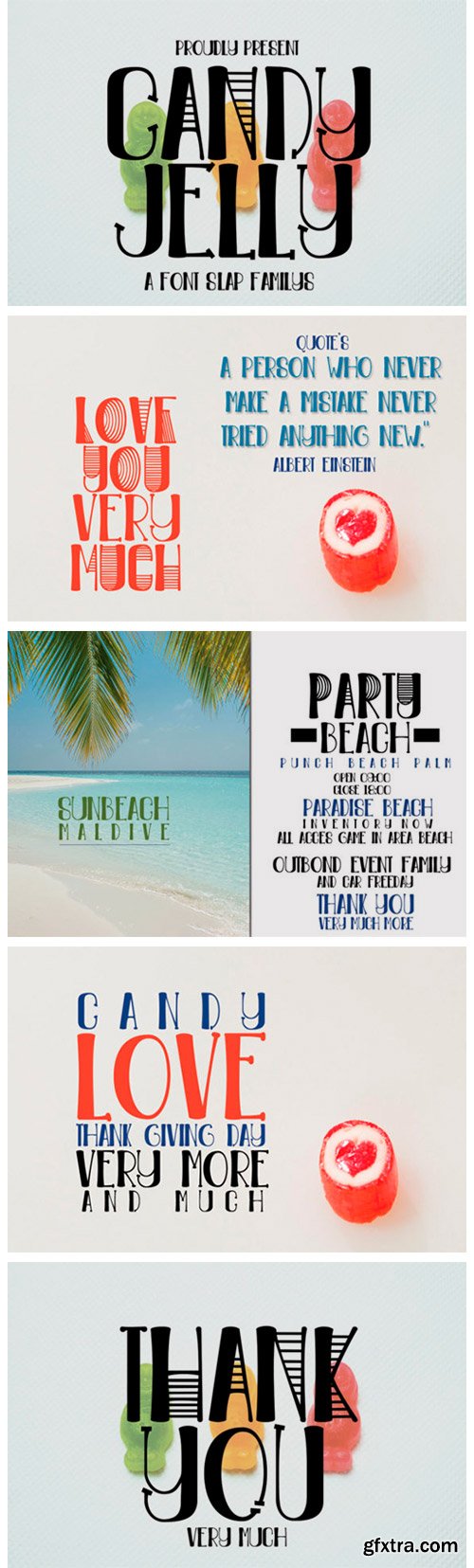
Candy Jelly Font
Candy Jelly is an incredibly unique display font. Masterfully designed to become a true favorite, this font has the potential to bring each of your creative ideas to the highest level!